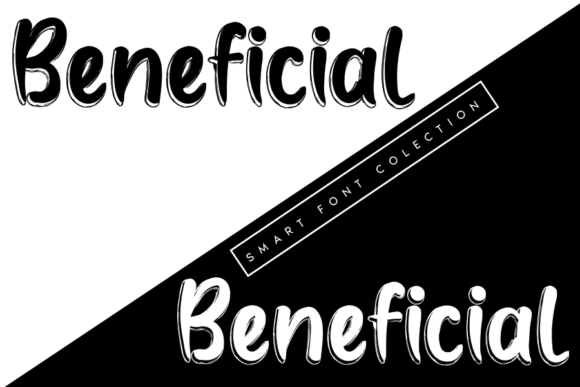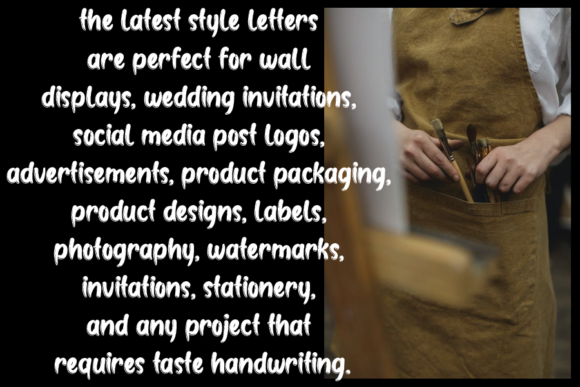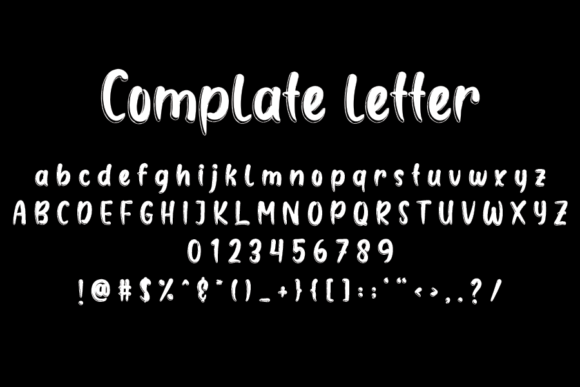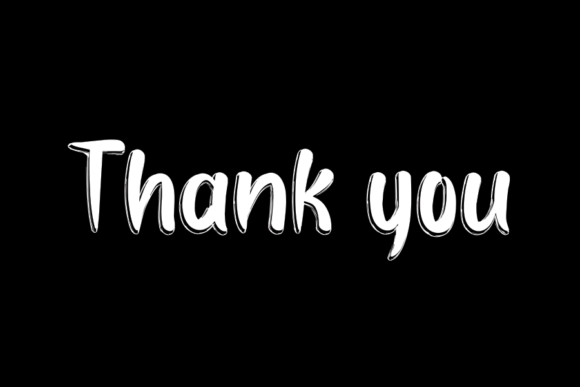
The Hunt for the Perfect Font: How Beneficial Font Became My New Go-To
I still remember the frustration of scrolling through font after font, searching for the perfect fit for a client’s branding project. The brief was simple: a casual, yet unique feel that would appeal to a creative audience. I tried font after font, but nothing seemed quite right – until I stumbled upon Beneficial Font. Created with a brush pen, this handwritten font has a clean, quirky vibe that instantly won me over.
What I Love About Beneficial Font ✨
- ✅ Unique, handwritten feel that’s perfect for creative projects
- ✅ Clean lines and subtle imperfections that give it a personal touch
- ✅ Versatile and adaptable for various design applications, from logos to social media graphics
- ✅ Easy to read, even at smaller font sizes
- ⚠️ Some characters may appear a bit inconsistent in size or spacing, which can be noticeable at larger font sizes
- ⚠️ Limited availability of extended language support
The Story Behind Beneficial Font
Beneficial Font was created by a talented designer who wanted to craft a unique, handwritten font that would inspire creativity and self-expression. Using a brush pen, they carefully crafted each character to convey a sense of warmth and personality. The result is a font that’s both clean and quirky, perfect for designers, crafters, and creative hobbyists.
| Font Name | Beneficial Font |
| What type of projects is Beneficial Font best suited for? | Beneficial Font is versatile and can be used for a wide range of projects, including logos, branding, social media graphics, and crafty DIY projects. |
| Is Beneficial Font suitable for body text? | While Beneficial Font is easy to read, it’s best suited for headlines, titles, and short paragraphs. For longer body text, a clearer font may be more suitable. |